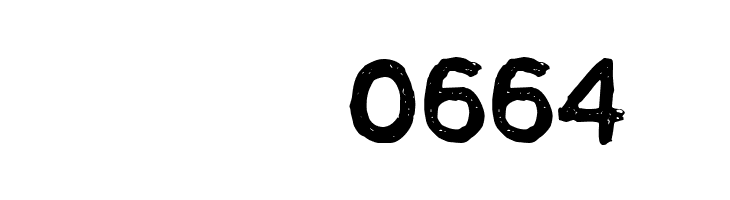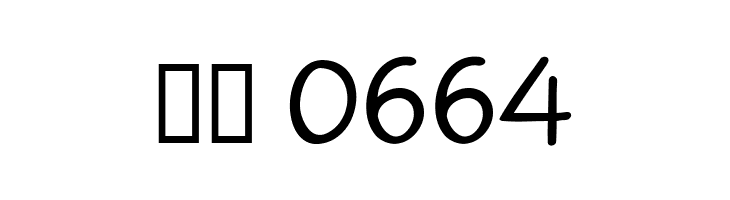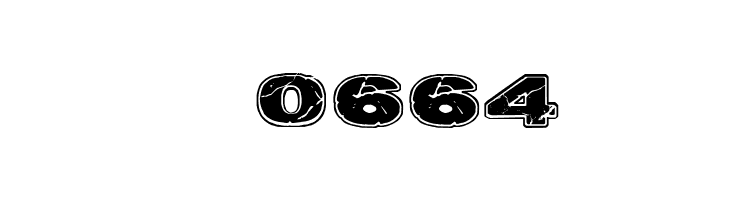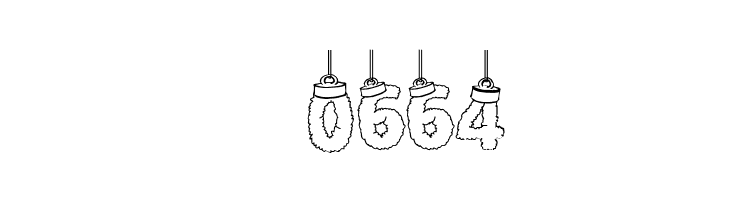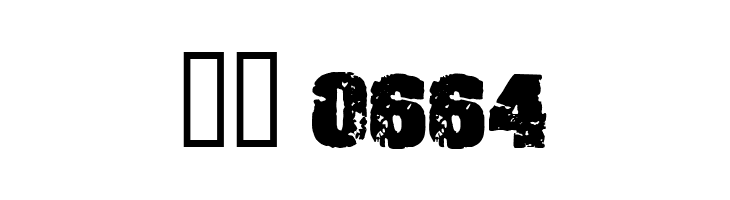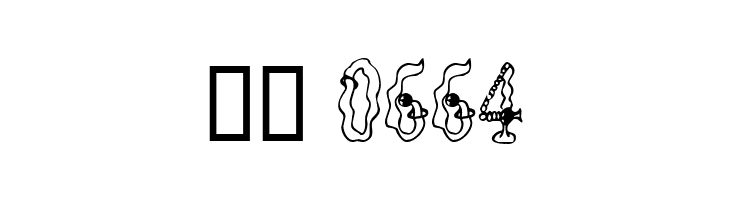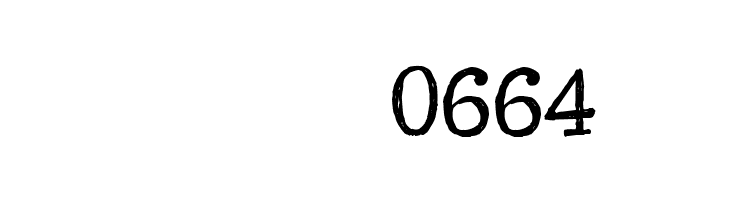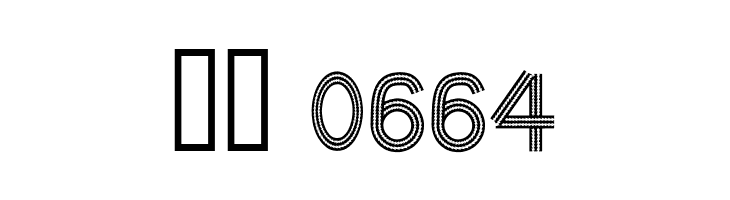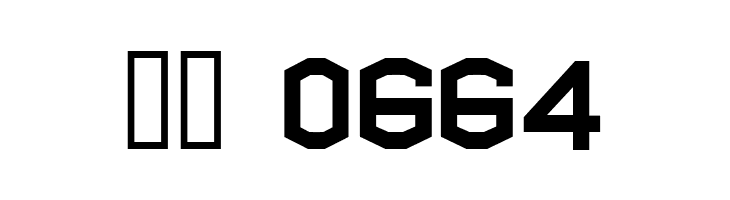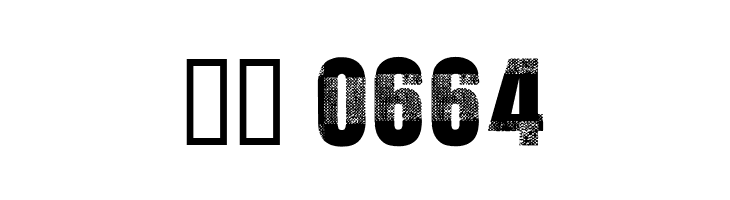
A whimsical, decorative font with curly embellishments and a vintage feel.
A distressed, grunge-style font with a rebellious and edgy appearance.
A rustic, organic font with a hand-drawn, tree-like appearance.
A decorative and intricate font with bold, uppercase letters and elaborate flourishes.
A bold, distressed font with a grunge texture and rugged appearance.
A bold, geometric font with a futuristic and industrial style.
A decorative font inspired by Aztec art, featuring intricate patterns.
A playful, distressed font with a hand-drawn, chalkboard style.
A bold, rugged font with a distressed, textured appearance ideal for impactful designs.
A bold, textured font with a newspaper print design, perfect for vintage-themed projects.
A bold, textured, hand-drawn font with a playful and casual style.
A modern sans-serif font with clean lines and a minimalist design.
A textured, chalk-like font with a playful, hand-drawn style.
A bold, high-contrast font with dramatic strokes and elegant curves.
A dynamic and elegant font with a slight slant, offering a sophisticated and versatile style.
A bold, distressed font with a vintage, handcrafted feel.
A bold, distressed font with a textured, vintage appearance.
A classic calligraphic font with elegant, flowing strokes and sophisticated flair.
A playful, hand-drawn font with rounded edges and consistent spacing.
A playful and modern font with a unique blend of rounded and angular elements.
A decorative font with a woven, textured appearance and geometric structure.
A playful, hand-drawn font with a whimsical and quirky style.
A classic script font with elegant, flowing lines and ornate uppercase letters.
A festive, fluffy font with Christmas ornament decorations.
A decorative font with a cross-stitch pattern, ideal for festive and handcrafted designs.
A decorative font with intricate, Mayan-inspired patterns.